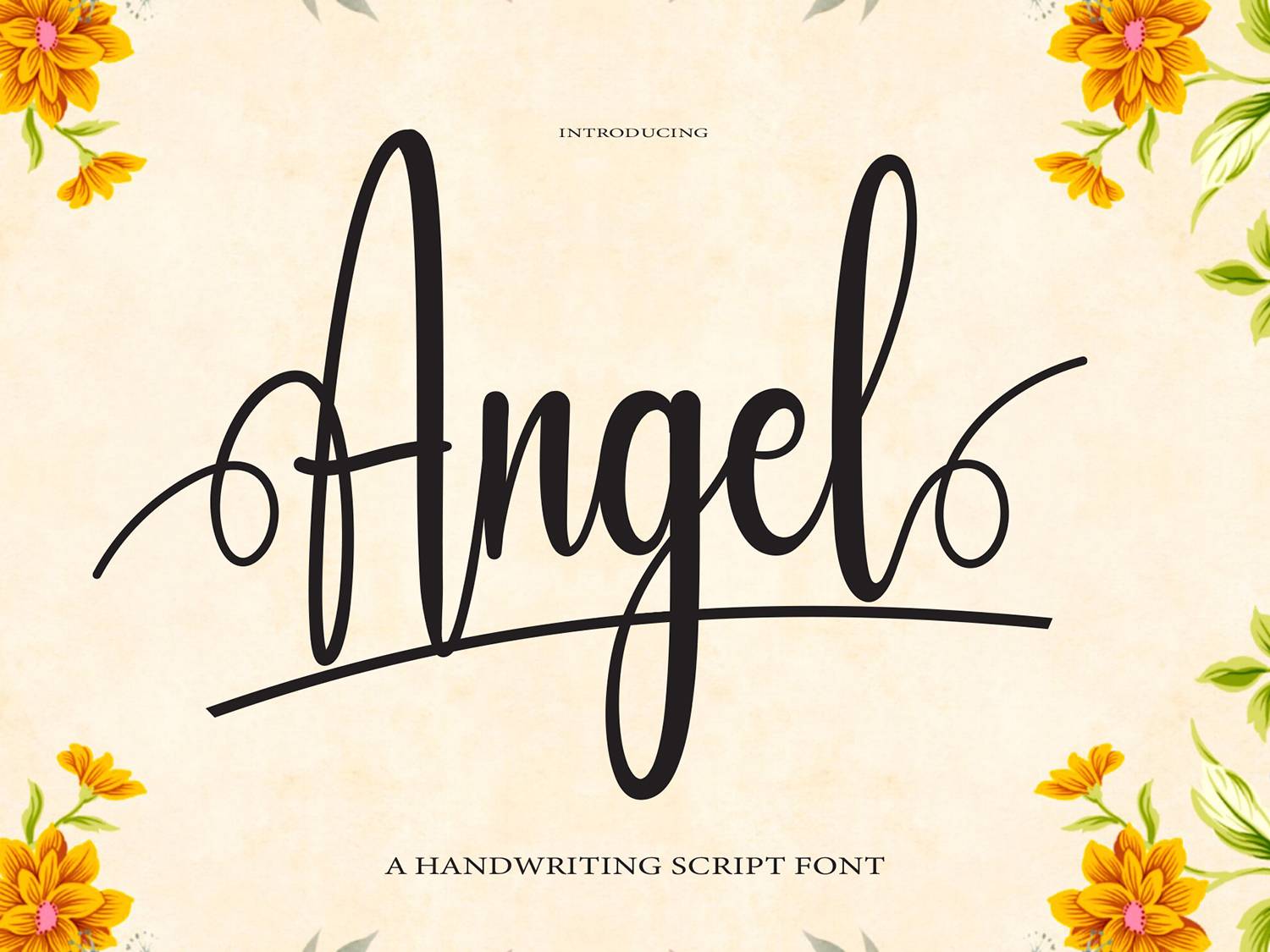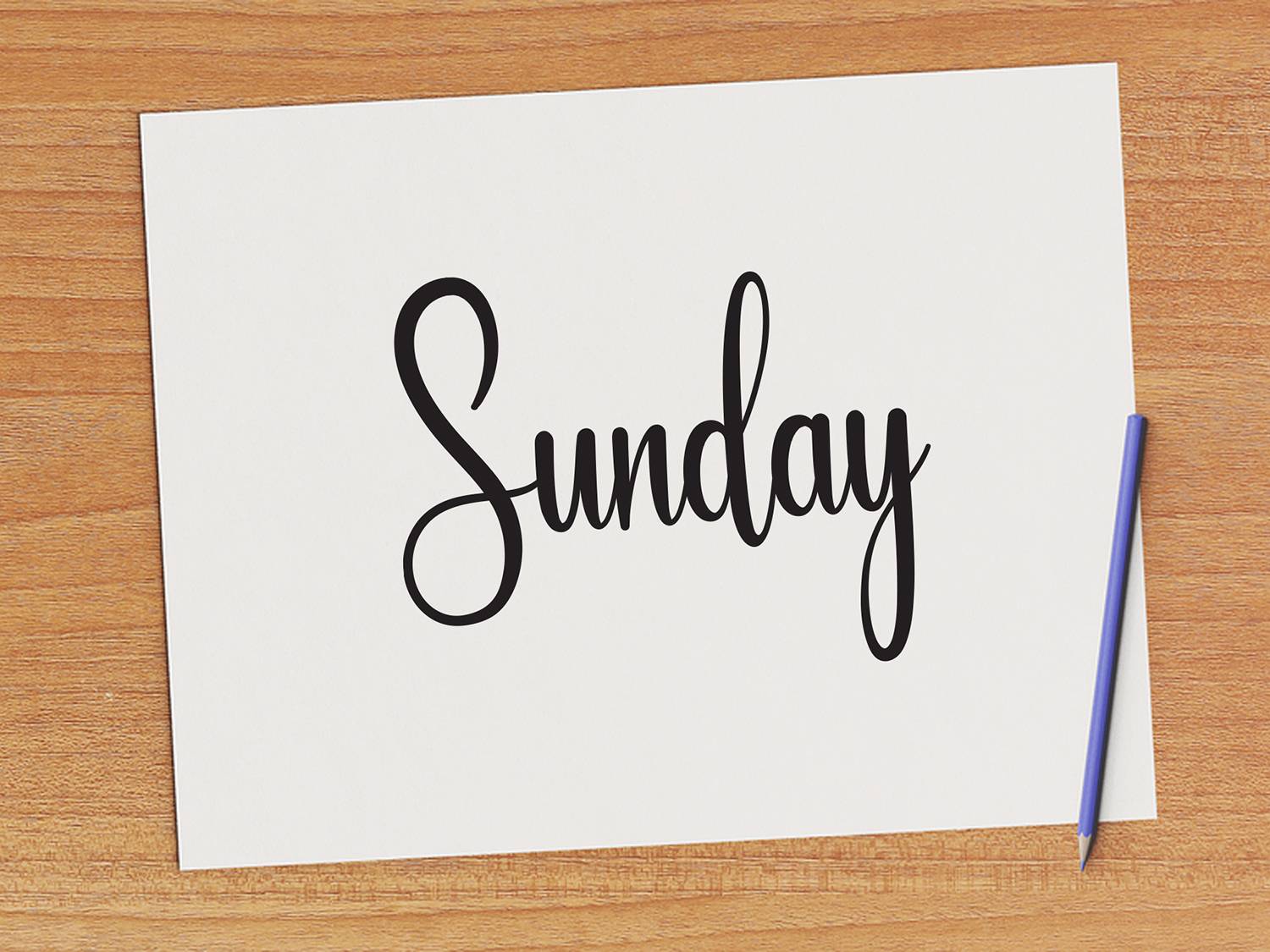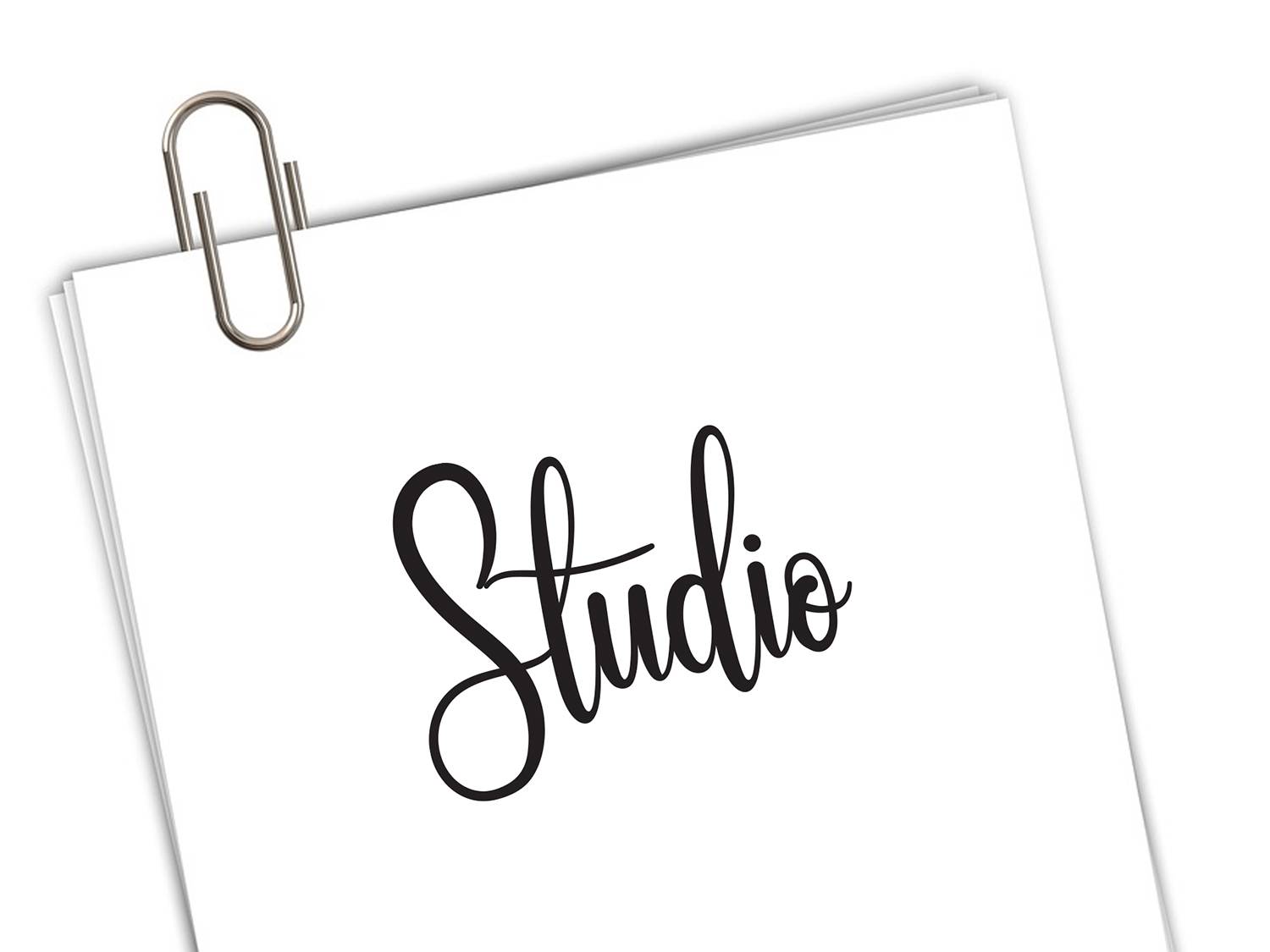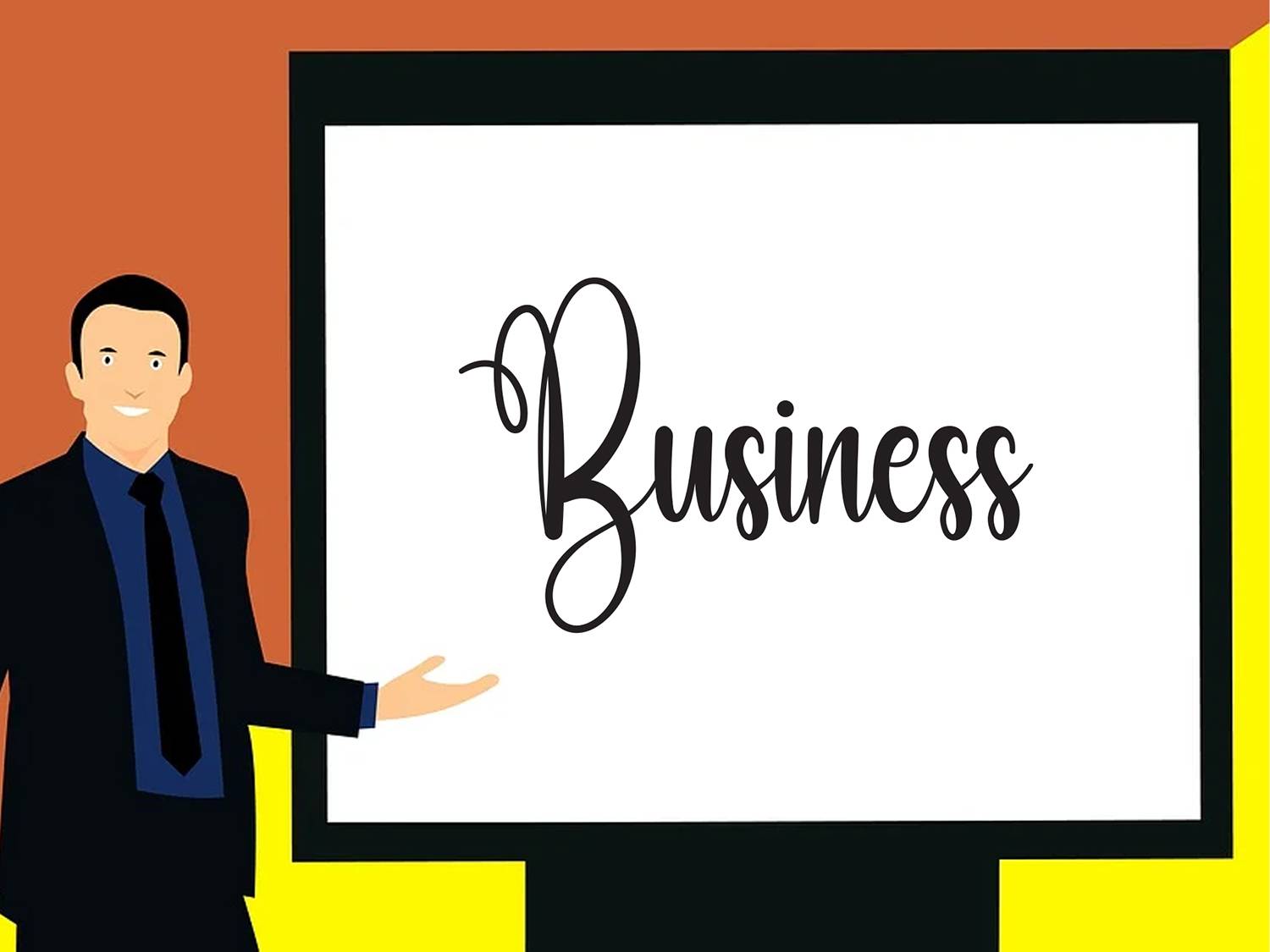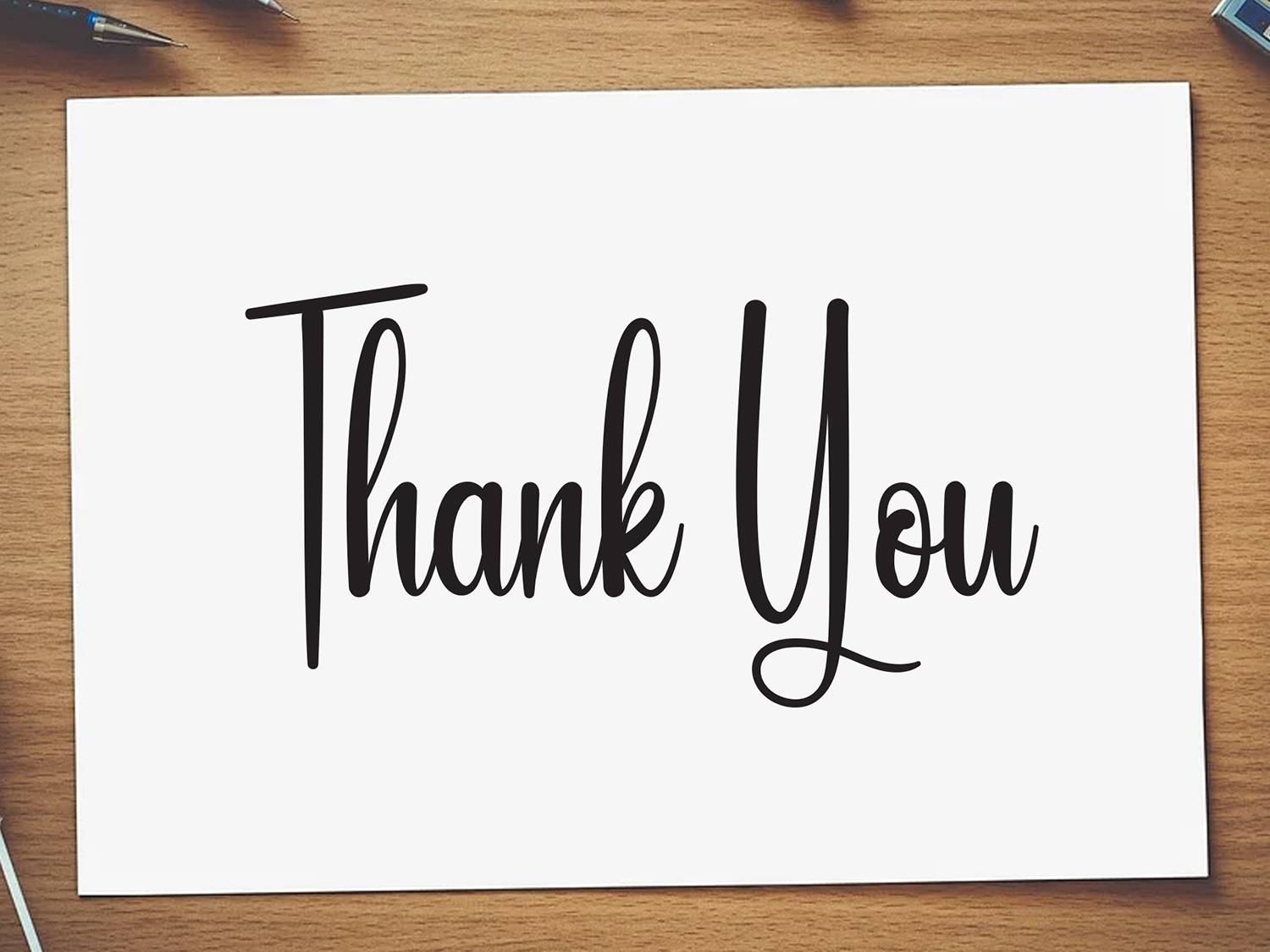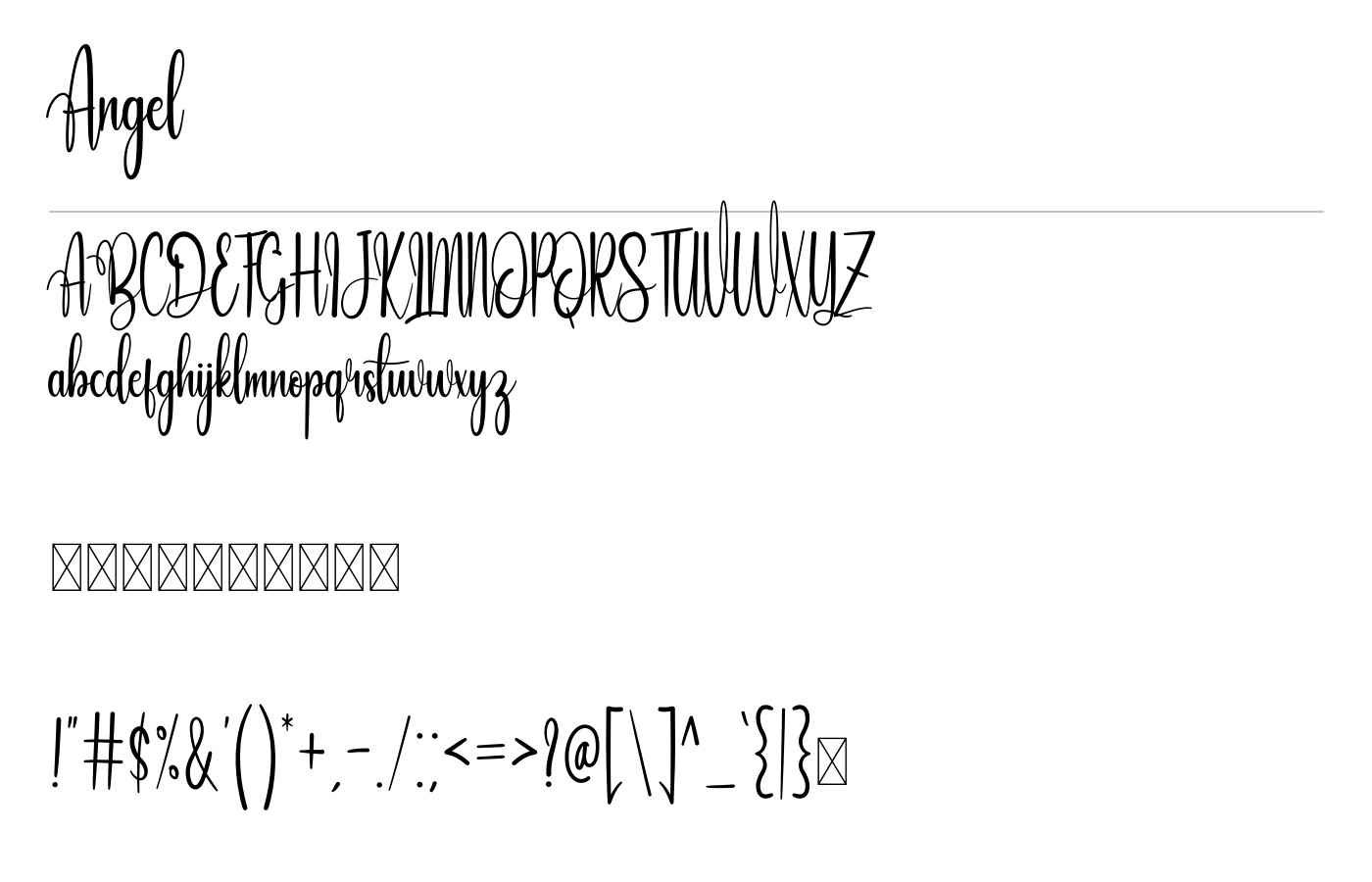
Angel Font is a delicate, handwritten script with tall, narrow letterforms and whimsical loops that give it a charming, playful personality. Its thin, consistent strokes and elegant curves make it ideal for creative branding, invitations, and feminine designs where a soft yet distinctive touch is desired. This font works best in headlines or short text, adding a personal and artistic flair to any project.
Angel Font
About Angel Font